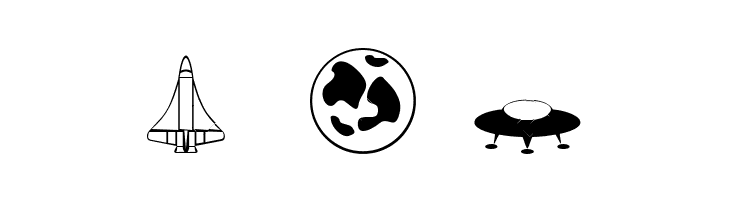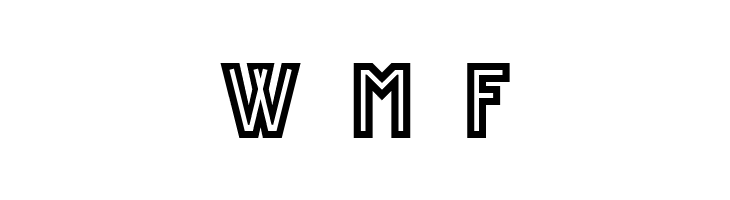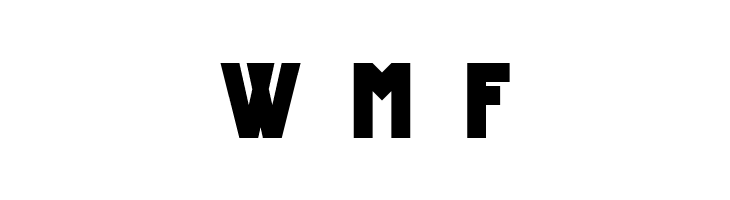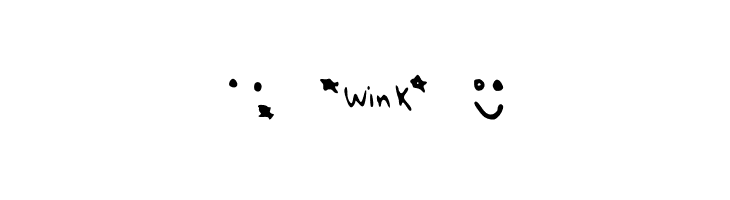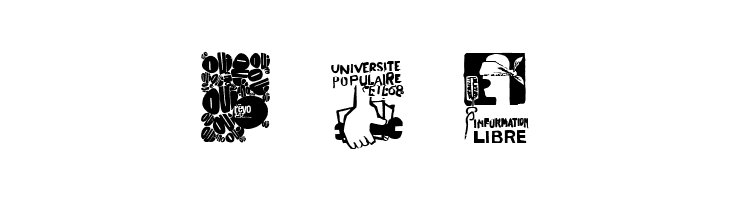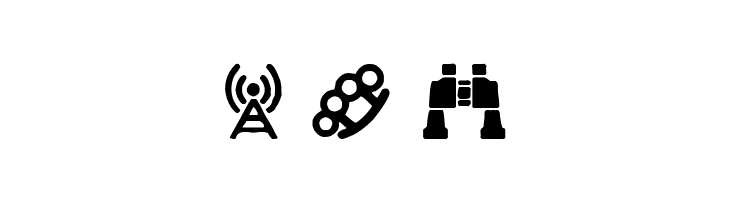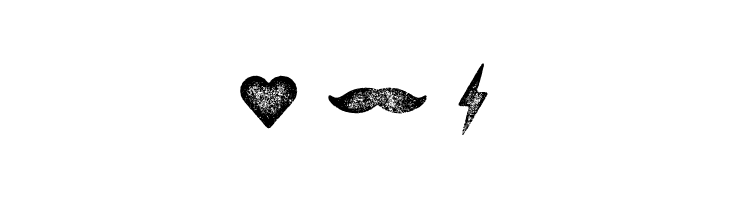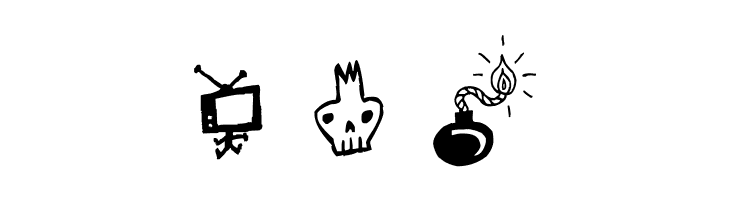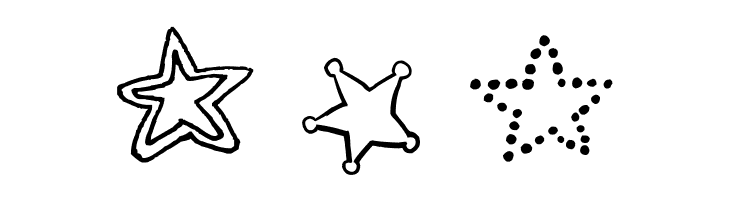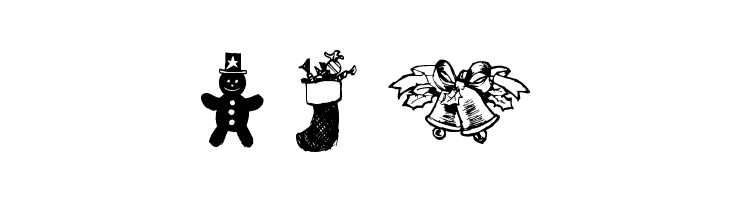
A collection of space-themed icons and illustrations.
A collection of intricate and ornate decorative symbols and shapes.
A bold, modern font with thick strokes and a geometric influence, ideal for impactful headlines.
Bold, geometric sans-serif font with a modern and clean design.
A bold, geometric font with high contrast and tight spacing, perfect for impactful headlines.
A diverse collection of ampersand designs ranging from elegant to modern.
A modern collection of decorative symbols and icons with a clean, minimalistic style.
A collection of historical symbols used for communication by itinerant workers.
A whimsical collection of hand-drawn heart designs with varied styles.
A whimsical collection of playful and enchanting dingbats featuring princess-themed symbols.
A whimsical collection of hand-drawn symbols and doodles with a playful, informal style.
A playful collection of bold, easily recognizable symbols and icons.
A collection of protest posters with bold, expressive typography and imagery.
A collection of artistic human profile illustrations, not a traditional font.
A decorative collection of stylized face icons with unique features.
A bold collection of military-themed icons with consistent style and strong visual impact.
A collection of vintage-style, distressed icons and symbols with a grunge texture.
Decorative, retro, and pop culture-inspired logotype collection.
A decorative collection of heart-themed symbols and designs conveying love and affection.
A playful and whimsical collection of unique monster illustrations.
A whimsical collection of heart-themed decorative symbols.
A playful, hand-drawn collection of romantic speech bubbles and doodles.
A playful and eclectic collection of bold, whimsical symbols with a street art vibe.
A decorative collection of star-themed symbols and patterns.
A playful collection of festive Christmas-themed doodles in black and white.
A playful collection of cartoon-style character illustrations.
A collection of bold, high-contrast icons and symbols in a modern style.
A versatile collection of bold, geometric symbols with high contrast.
A collection of geometric shapes and symbols forming a modern, abstract design.
A collection of dancer silhouettes representing characters in artistic poses.
A collection of decorative floral and ornamental motifs.
A diverse collection of uniquely styled arrows for versatile design use.
A collection of decorative heart and cherub designs for embellishment.
A versatile collection of brand icons with a clean and modern aesthetic.